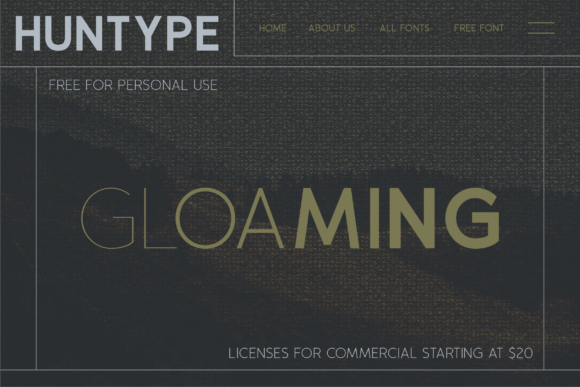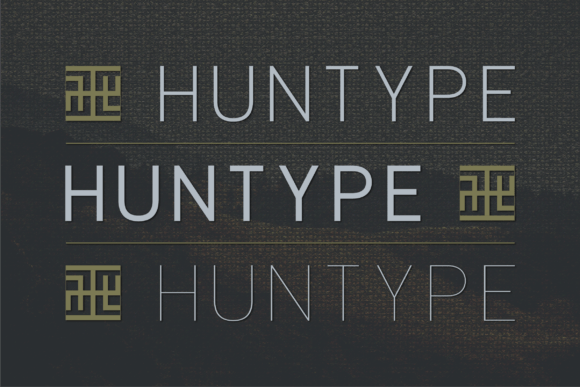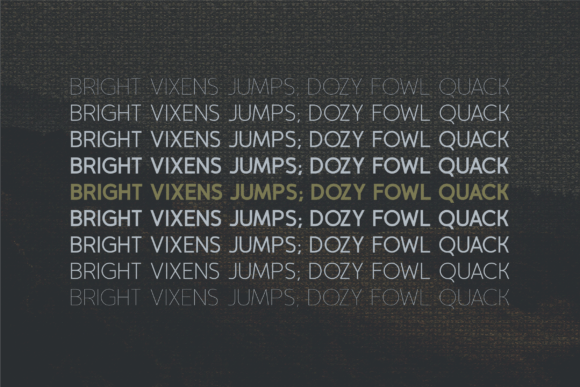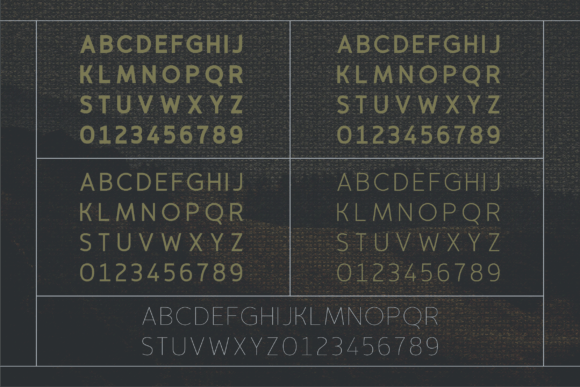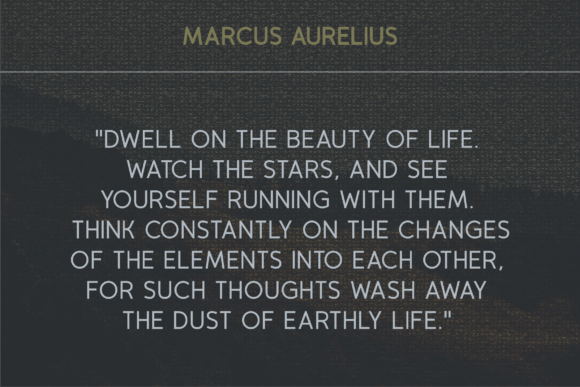
Unlocking the Power of the Gloaming Font
There’s nothing quite like the rush of creating something new, and for designers, it’s often the small moments that spark the most inspiration. Maybe it’s a burst of color, a clever composition, or the perfect font choice – in my case, it was the discovery of the Gloaming Font. Its unique blend of clean geometric forms and subtle sophistication instantly caught my attention, and I knew I had to learn more.
As a versatile font family, Gloaming offers designers the flexibility to adapt its style to any project, from bold headlines to refined designs. With five distinct fonts to choose from – Thin, Light, Regular, Bold, and Black – the possibilities are endless. Whether you’re looking to add a touch of sophistication or make a statement, the Gloaming Font is an invaluable tool in your creative arsenal.
- Unique Characteristics: Gloaming Font features a unique blend of elegance and sophistication, with intricate details and subtle nuances that set it apart from other fonts.
Gloaming Font Review
Gloaming Font is an interesting addition to the world of typography. On the plus side, I appreciate its ✨ unique aesthetic, which is perfect for designers looking to create a sense of mystery and enchantment. The font’s dreamy quality is sure to add a touch of magic to any project.
Some of the features I like about Gloaming Font include:
- ✨ Highly legible in both digital and print formats
- ✨ Wide range of font weights and styles to choose from
- ✨ Suitable for use in various design contexts, from marketing materials to editorial content
However, I do have some concerns about the font’s limitations:
- ⚠️ May be too whimsical for more formal or corporate designs
- ⚠️ Limited support for certain languages or character sets
- ⚠️ May not be suitable for use in small font sizes due to its intricate design
Overall, I think Gloaming Font is a solid choice for designers who want to add a touch of fantasy to their work. While it may not be the best fit for every project, it’s definitely worth considering for the right client or design brief.
Tips for Getting the Most Out of Gloaming Font
To get the most out of Gloaming Font, use it for:
- Creating a mystical or ethereal atmosphere.
- Designing fantasy or sci-fi artwork.
- Adding a touch of elegance to your typography.
Gloaming Font is commonly used for:
- Book covers and titles.
- Website headers and footers.
- Print advertisements and marketing materials.
Alternatives to Gloaming Font
Gloaming Font is a unique, cursive font often used for titles, headings, and quotes due to its elegant and whimsical appearance. However, for designers seeking alternative fonts with similar characteristics, here are a few options: